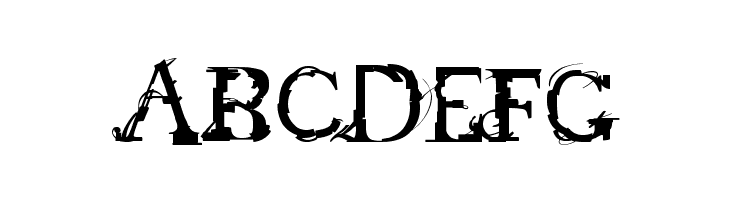
( Fonts by Will Haun )
An edgy, distressed font with jagged edges and chaotic strokes.
( Fonts by Sinister Fonts )
A horror-themed, dripping font with bold, jagged characters.
( Fonts by Xerographer Fonts )
A bold, graffiti-inspired font with sharp, jagged edges and dynamic strokes.